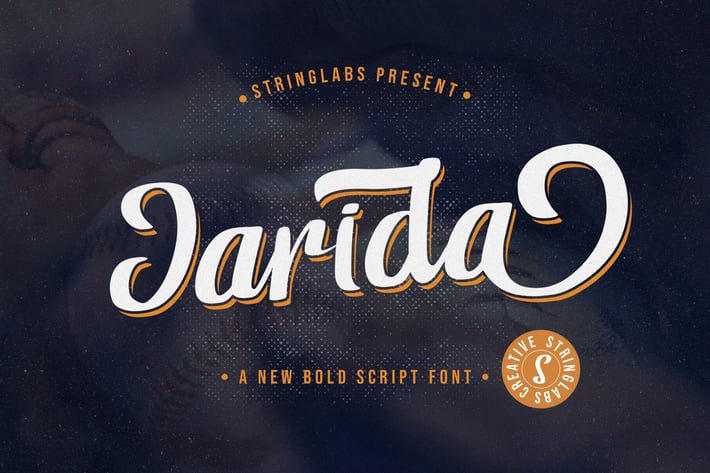
Jarida - Bold Script Font
Introducing Jarida - Bold Script Font
Jarida is a bold script font with smooth curves that is just what you need for your next projects. Perfect for branding, logo design, posters, magazine covers and other design projects.
- Stylistic Alternates
Jarida is a bold script font with smooth curves that is just what you need for your next projects. Perfect for branding, logo design, posters, magazine covers and other design projects.
- Stylistic Alternates